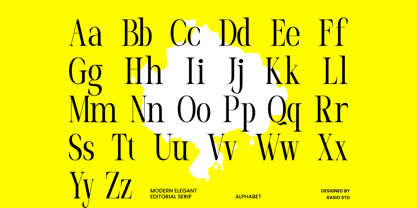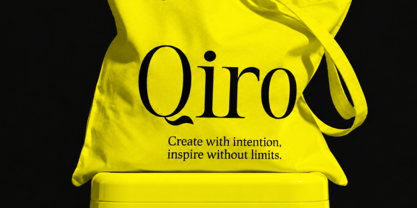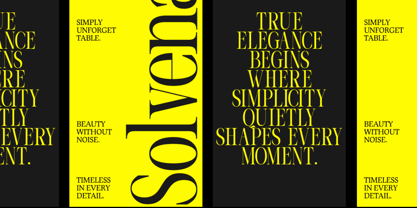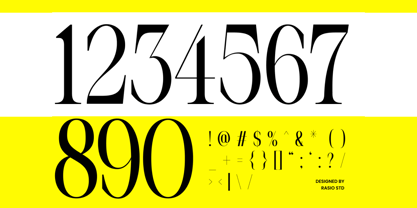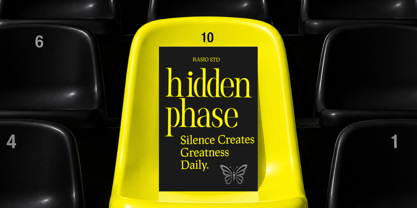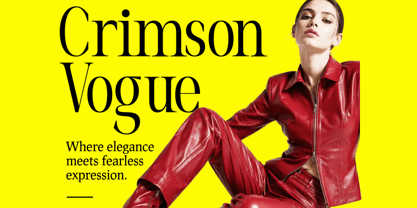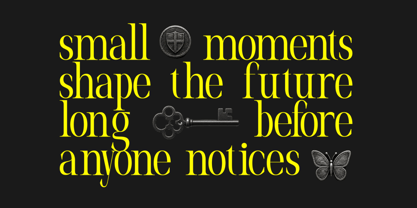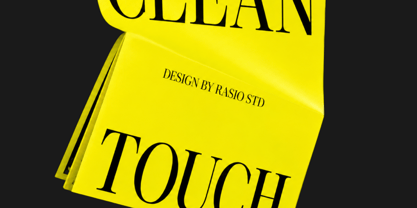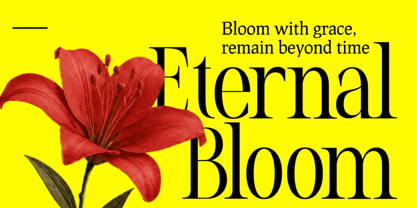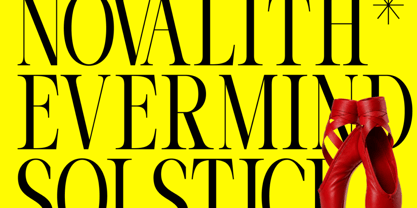
Evoire
par Rasio Studio
La famille de polices Evoire a été conçue par Fajar Indra et publiée par Rasio Studio. Evoire contient 1 styles. En savoir plus sur cette famille
Evoire is a contemporary editorial serif designed to deliver striking visual impact through refined proportions, dramatic contrast, and confidently sculpted letterforms. The typeface balances crisp geometric precision with graceful curves, producing a sophisticated rhythm that feels equally at home in luxury branding and high-fashion publications.
Relevance and Use Case is perfect for projects where typography defines the overall visual identity. Its refined structure and editorial character make it highly suitable for luxury branding, fashion publications, beauty campaigns, premium packaging, boutique identities, restaurant branding, hotel collateral, publishing, certificates, invitations, product launches, and sophisticated marketing materials.